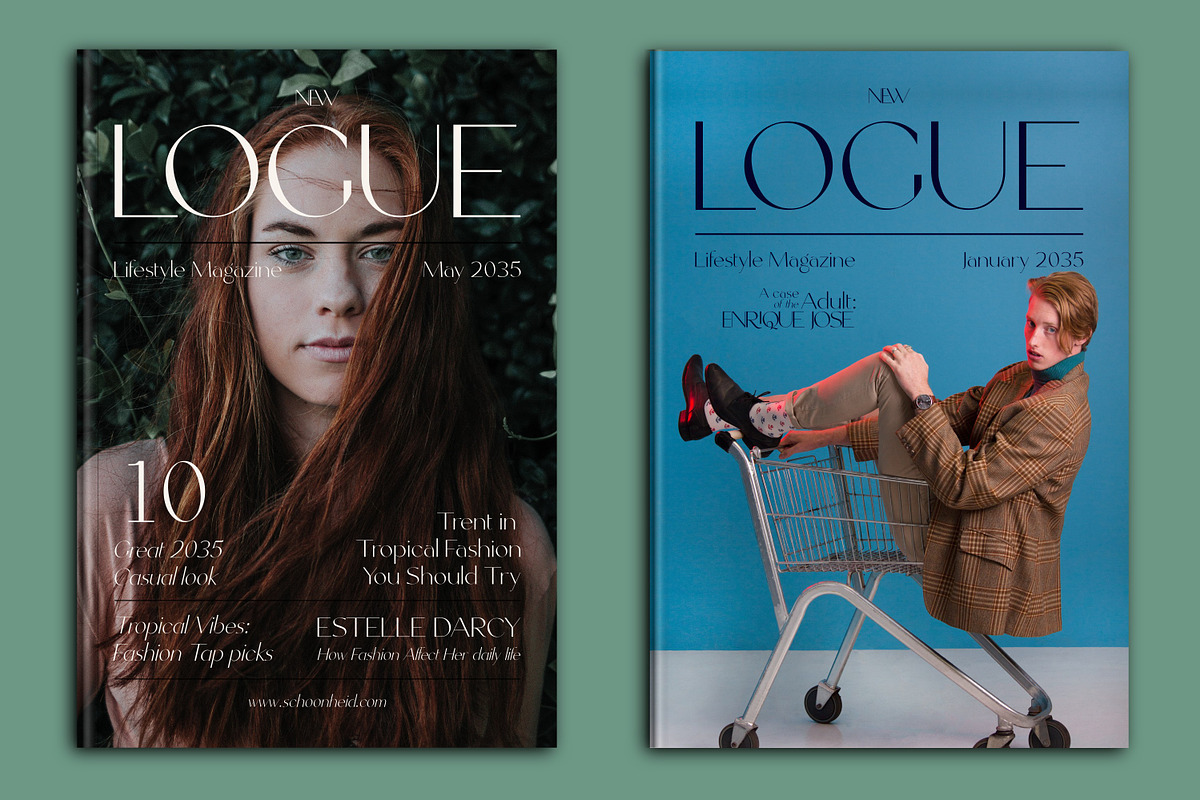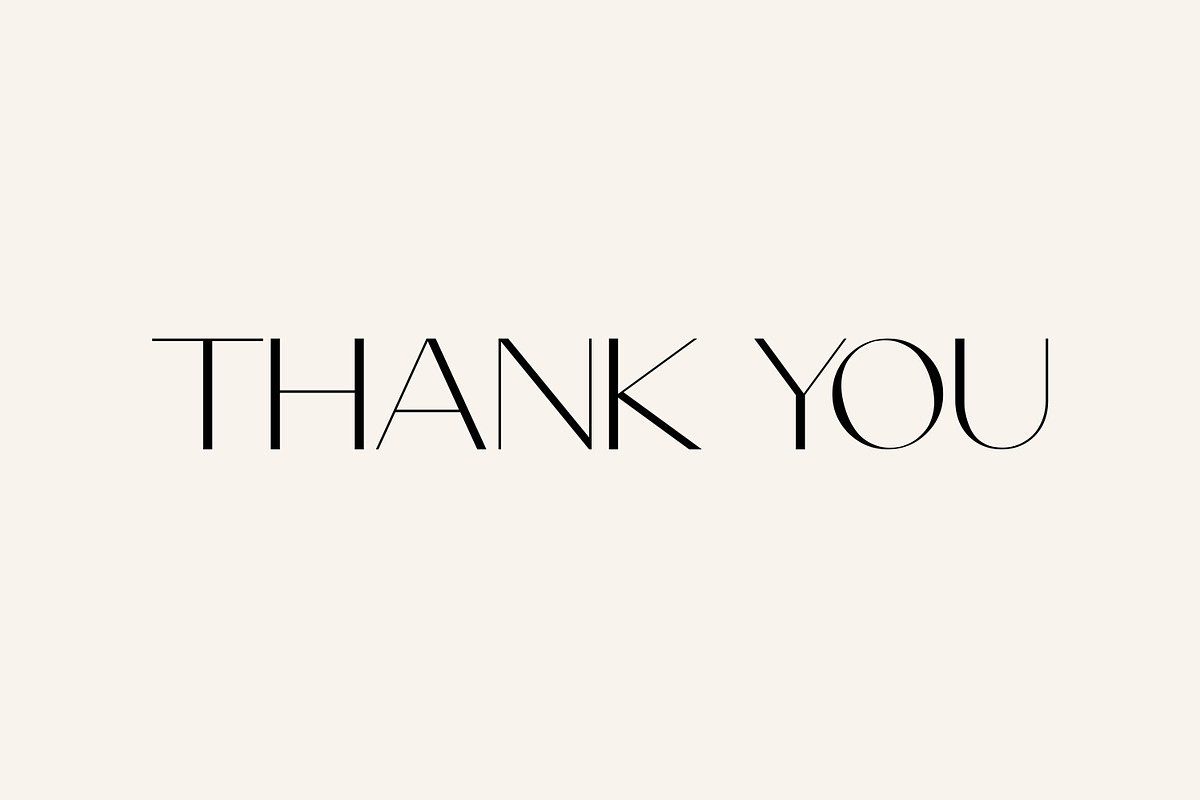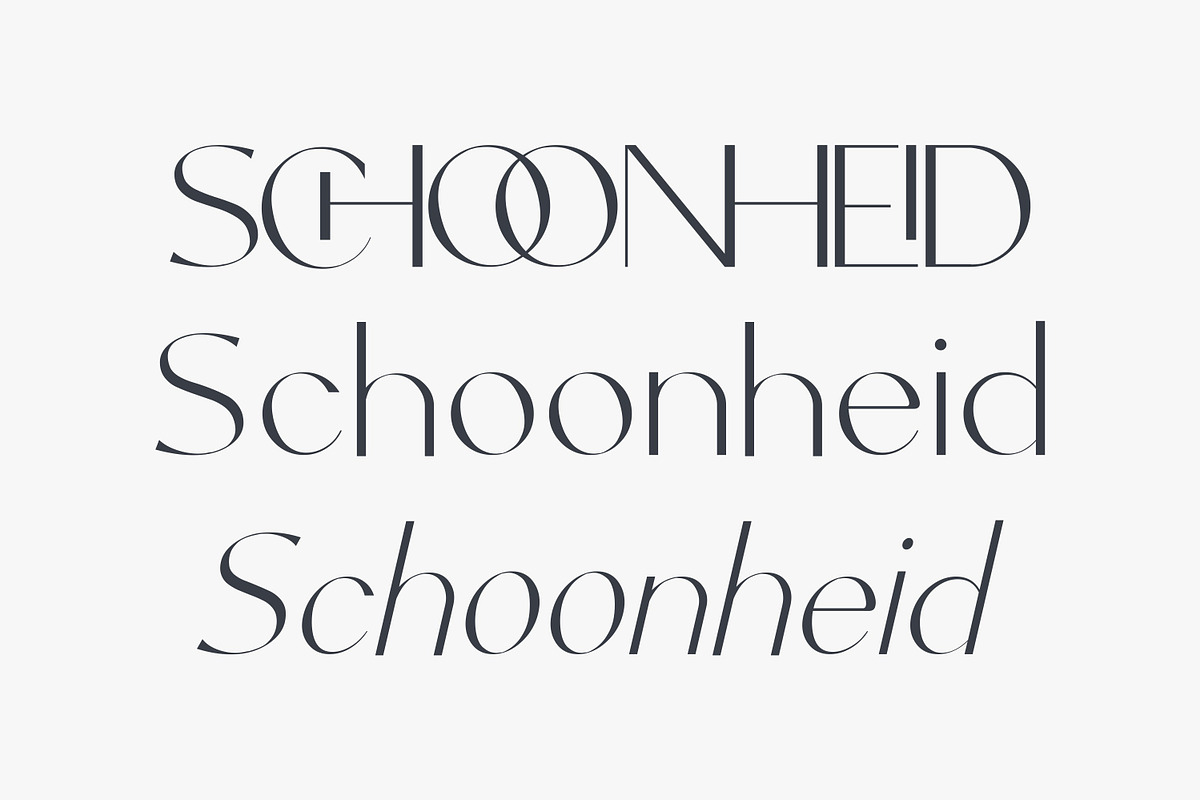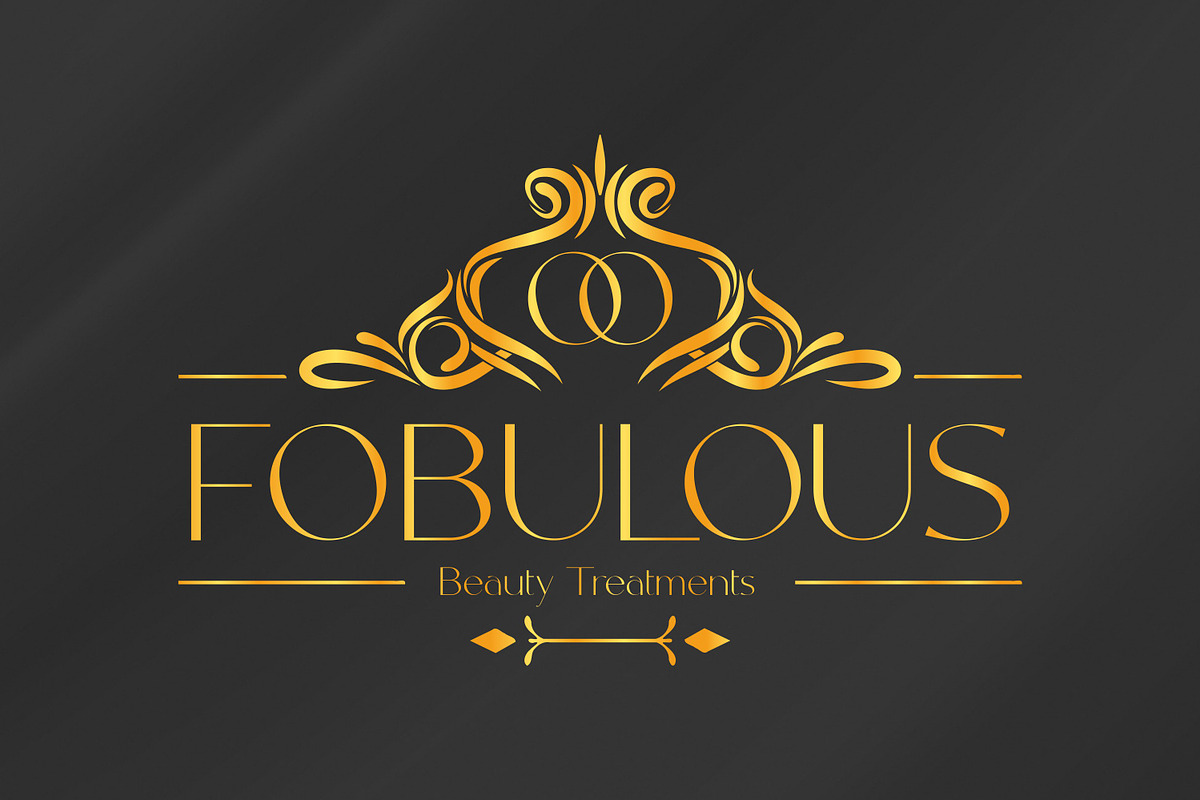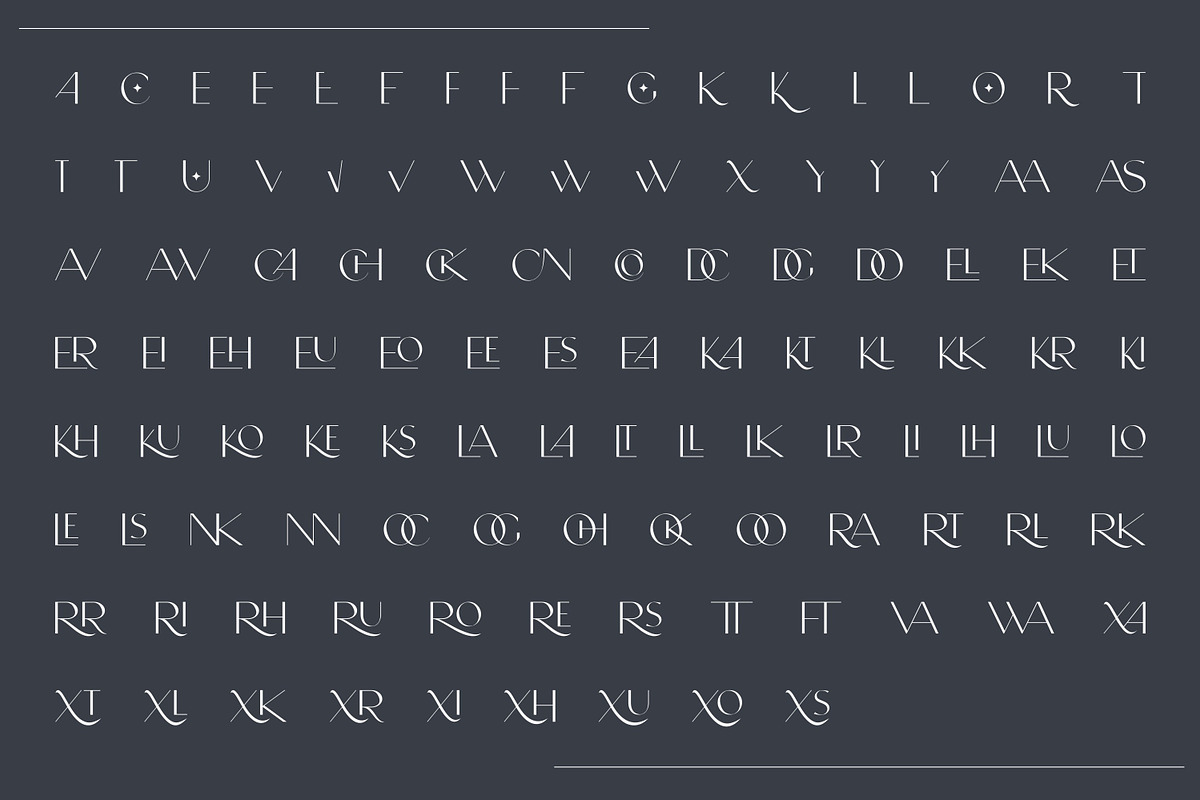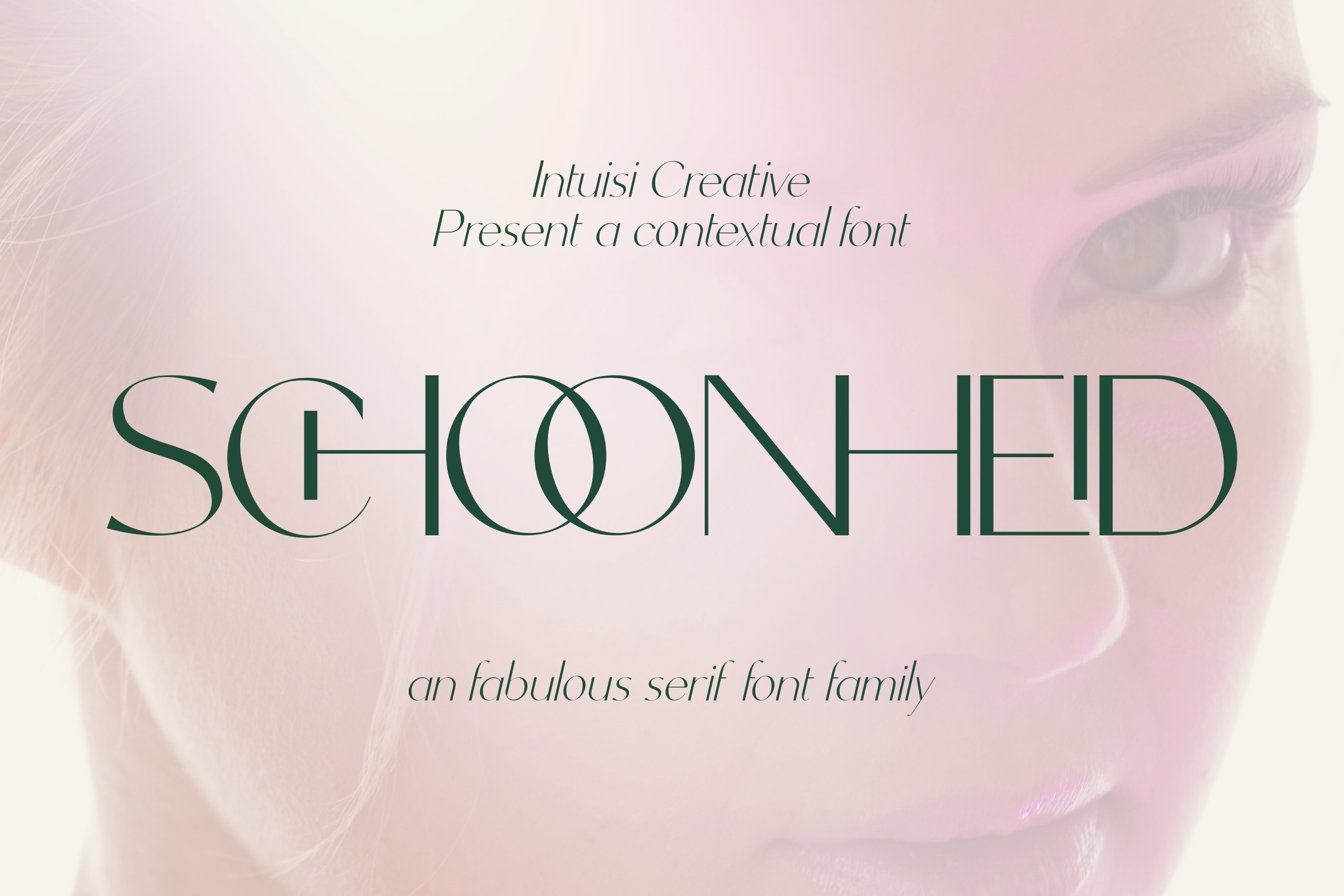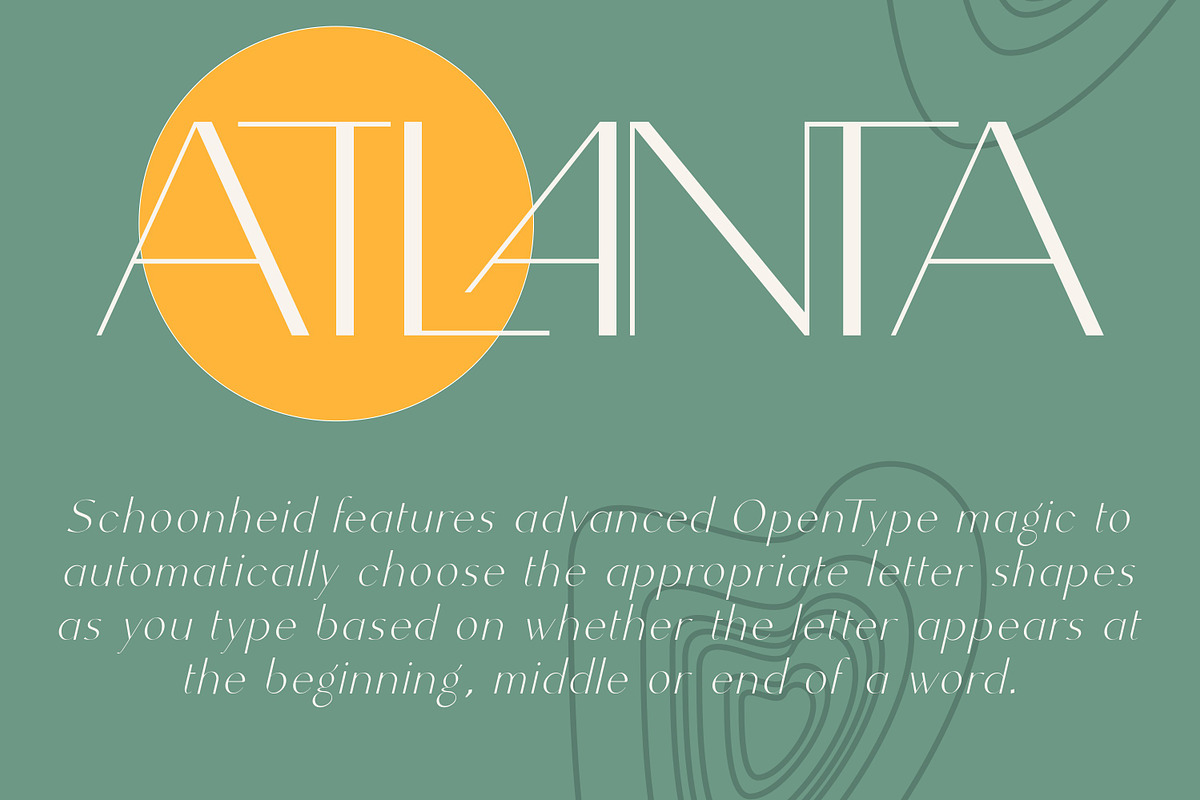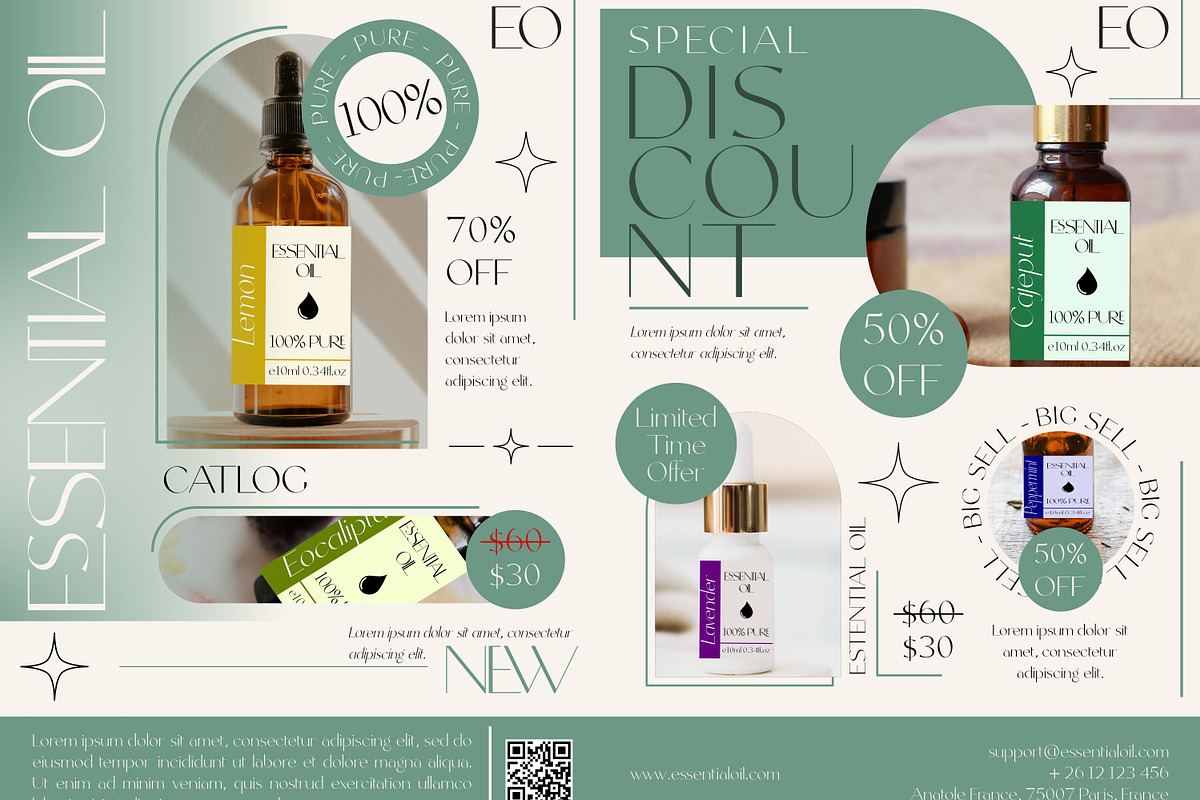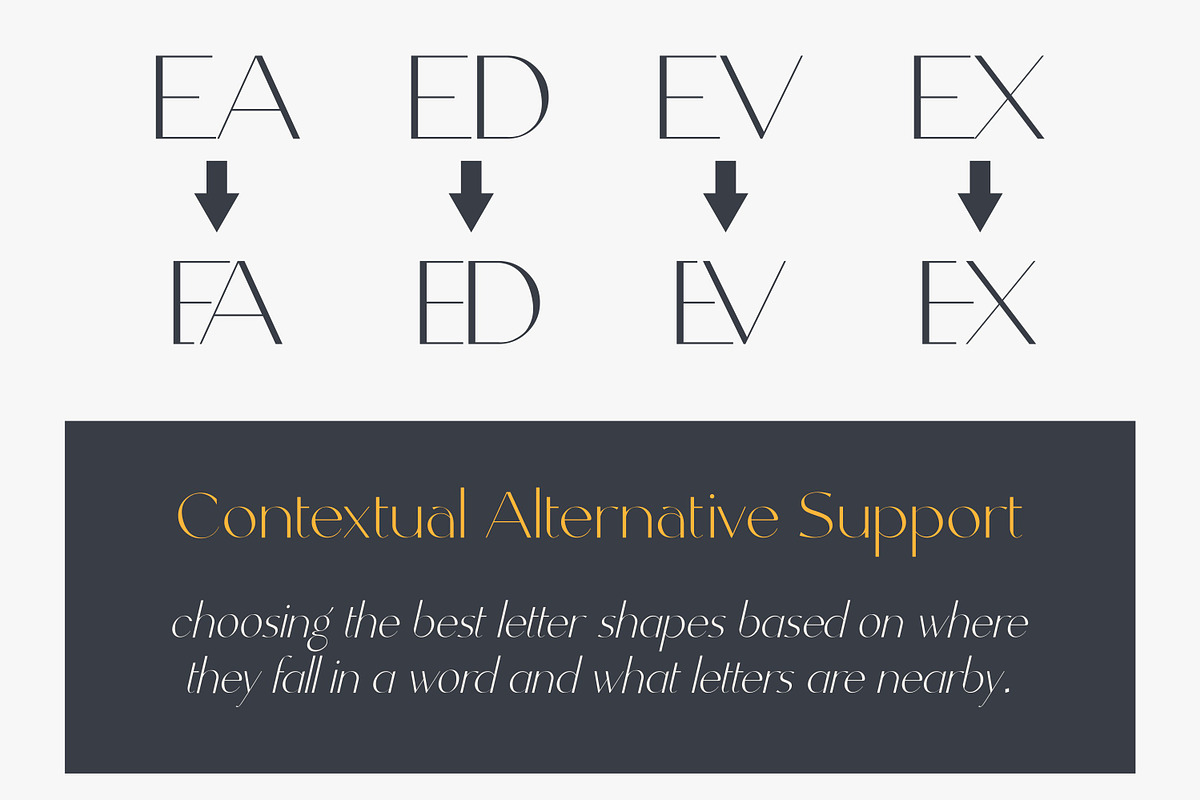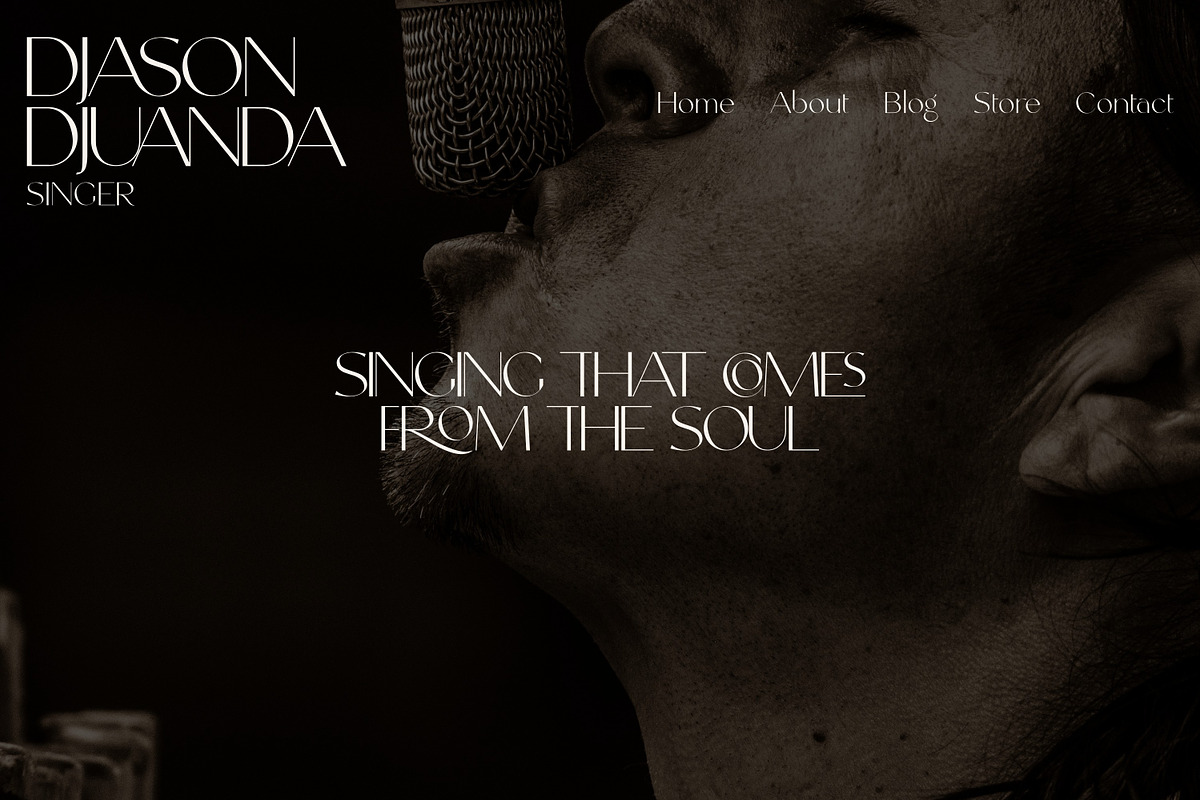
Schoonheid - Thick and Thin Font
Schoonheid is based on the thick and thin Gothic typeface that was popular in the US during the first half of the 20th century. Schoonheid Contextual Capitals has more than 100 ligatures, alternatives, and special characters consisting of uppercase letters. This font uses OpenType magic and is PUA coded which means you don't have to change the glyphs manually because it's very complicated, just type something and everything will magically change to what you think.